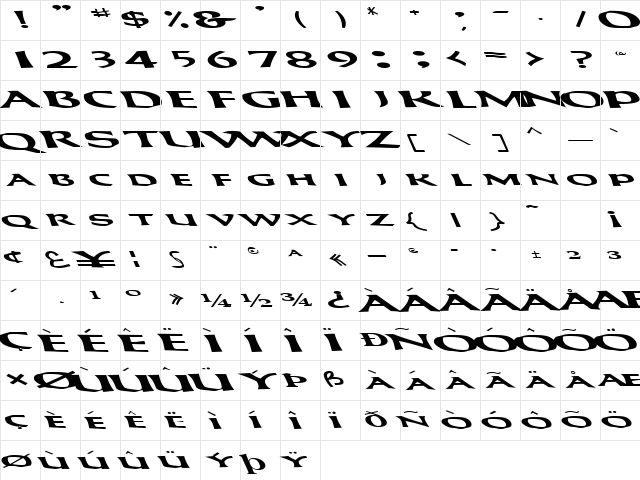
ZipThrough Regular
ZipThrough Family
Design Context for ZipThrough
ZipThrough embraces imperfection - its rough, textured character adds raw authenticity to designs that want to feel lived-in and unconventional.
Pro Tip: Use ZipThrough at larger sizes where the texture and irregularity of each letterform can be clearly seen - it loses its character at small sizes.